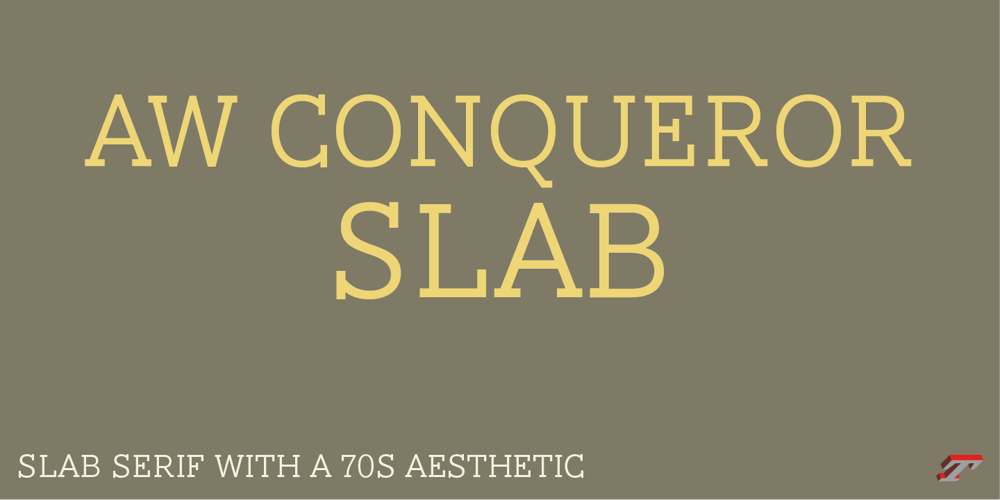
AW Conqueror Slab Std Light Font Family was designed by Jean François Porchez and published by Typofonderie. AW Conqueror Slab Std Light contains 1 styles and family package options. Slab serif with a 70’s aestheticA version of AW Conqueror Sans, AW Conqueror Slab draws inspiration from geometrical slab serifs of the 1930s, of which Rockwell is a perfect example. Lubalin Graph, a reworking of the genre, came out in the wake of the Avant Garde wave of the early 70s. In recent years, ‘slabs’ have made a comeback in the graphic design world. AW Conqueror Slab advances the cause quite happily.AW Conqueror superfamilyAW Conqueror Didot is part of a larger family, who include 4 others subfamilies with great potential: They’re but based on same structure, with some connection between them (width for example), to offer a great & easy titling toolbox to any designers, from skillful to beginner. Each of the members try their best to be different from the others because of their features. They should work harmoniously in contrast.Club des directeurs artistiques Prix 2010European Design Awards 2011